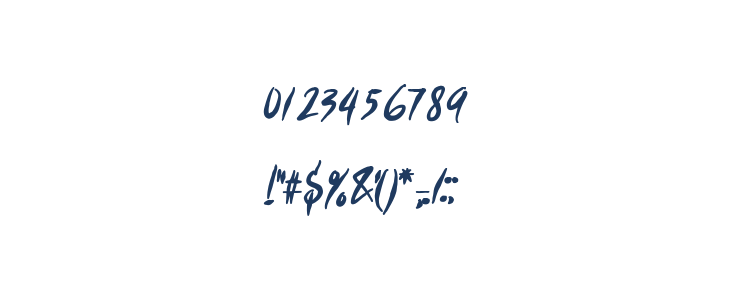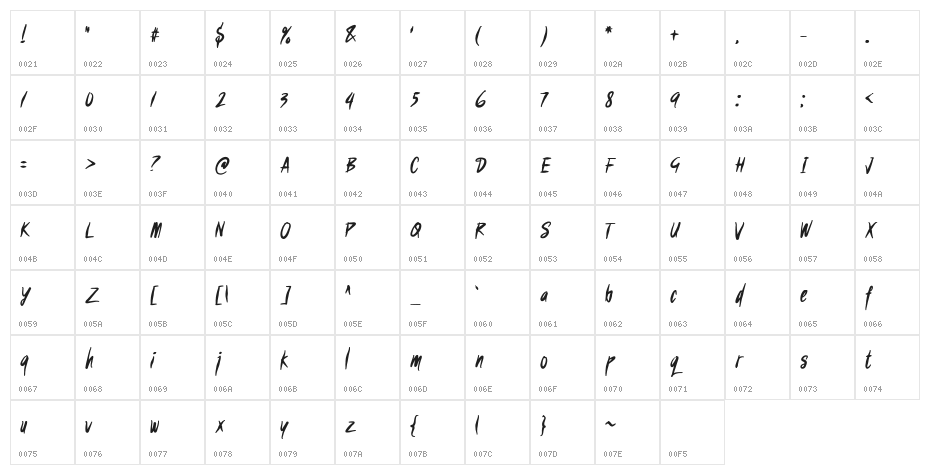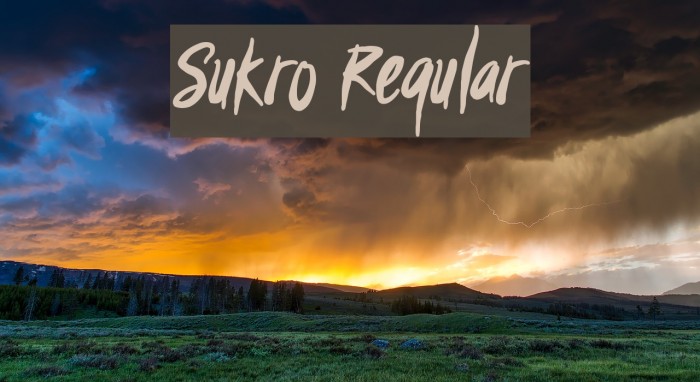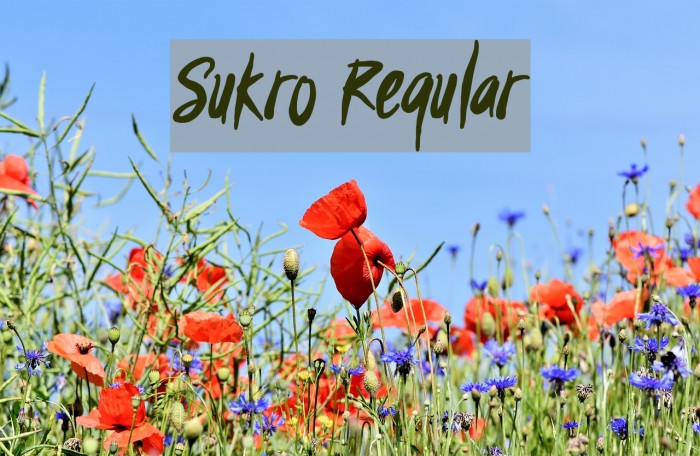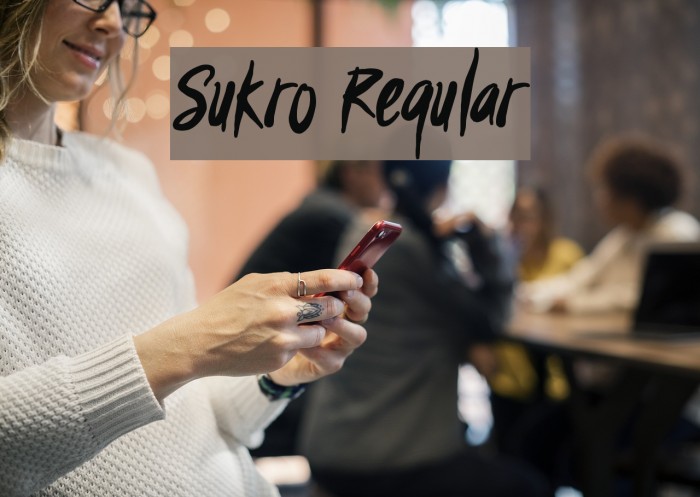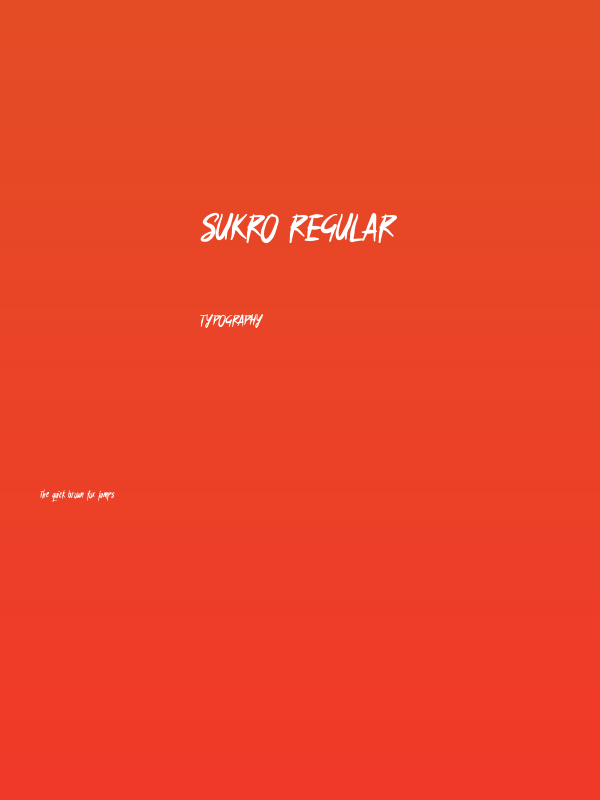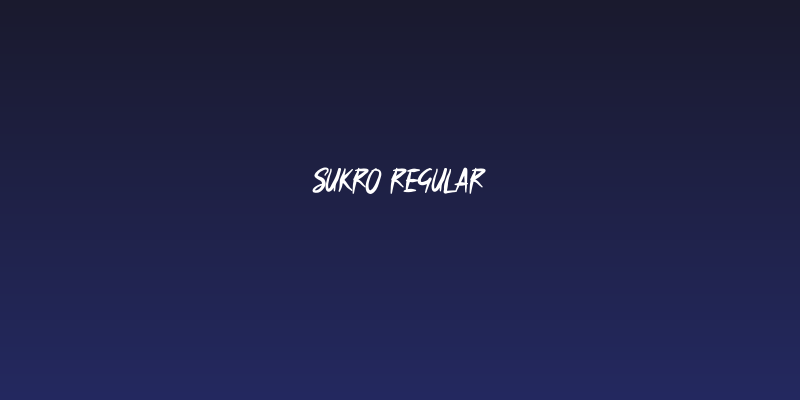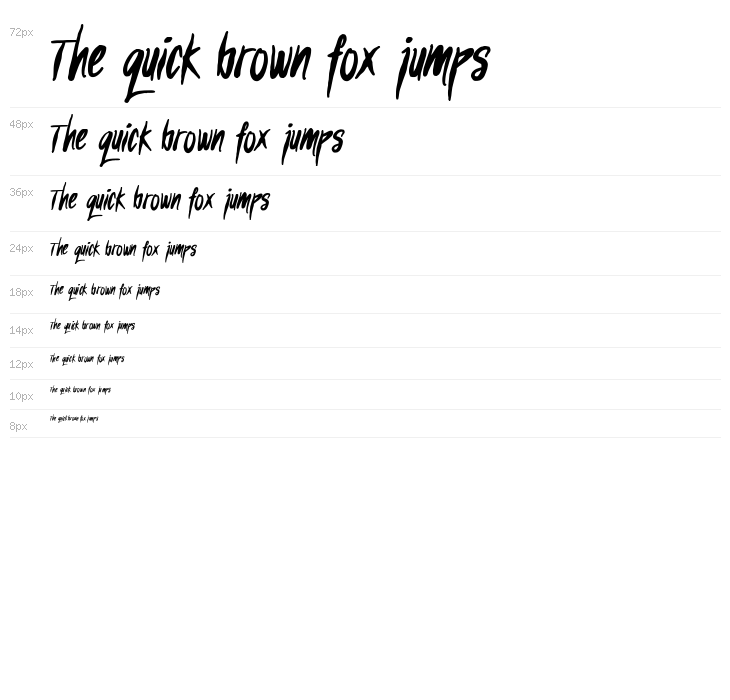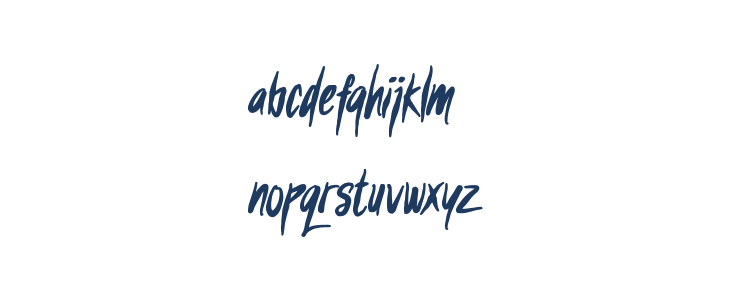
Sukro Regular Font
Sukro Regular Description
This font features a dynamic and energetic script style, characterized by its bold and expressive strokes. The letters have a hand-drawn appearance, with varying thickness that adds a sense of movement and flair. The uppercase letters are particularly striking, with a slightly slanted orientation that enhances their dramatic effect. The lowercase letters maintain a consistent style, complementing the uppercase with their fluid and connected forms. Numbers and special characters follow the same lively design, making the font versatile for various creative applications.
Proposed ProjectsIdeal for branding, posters, invitations, and any project requiring a lively, artistic touch.